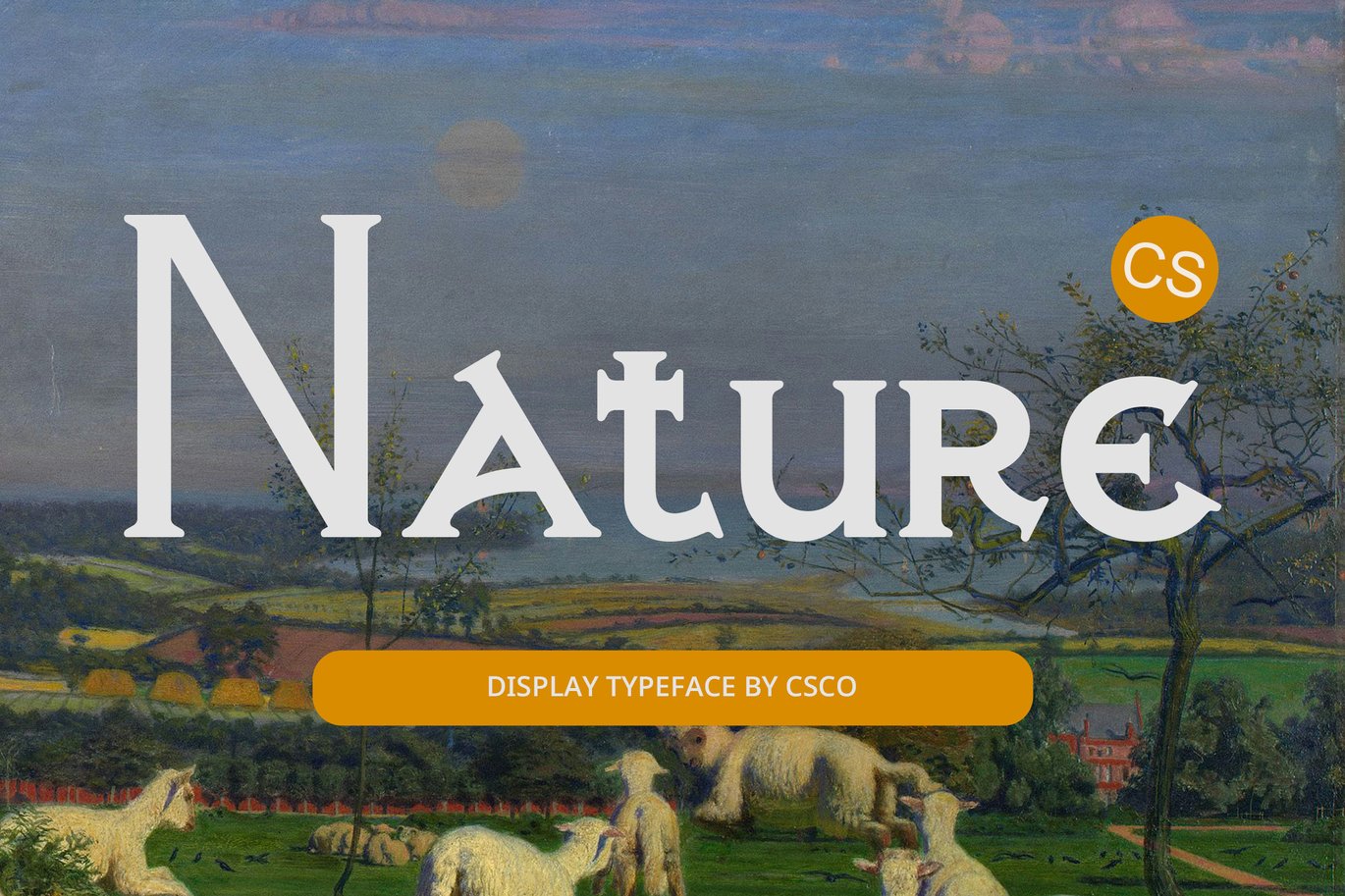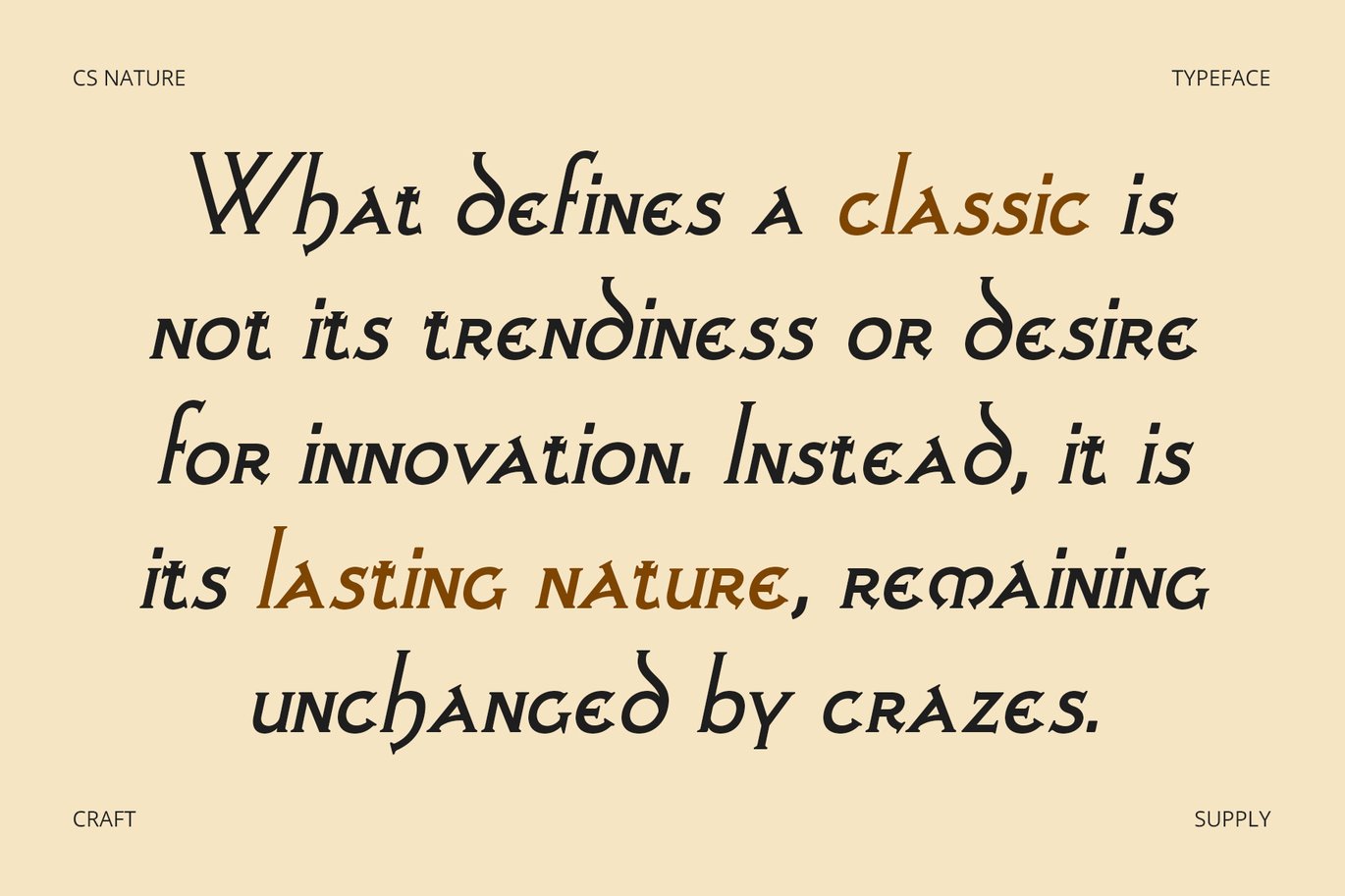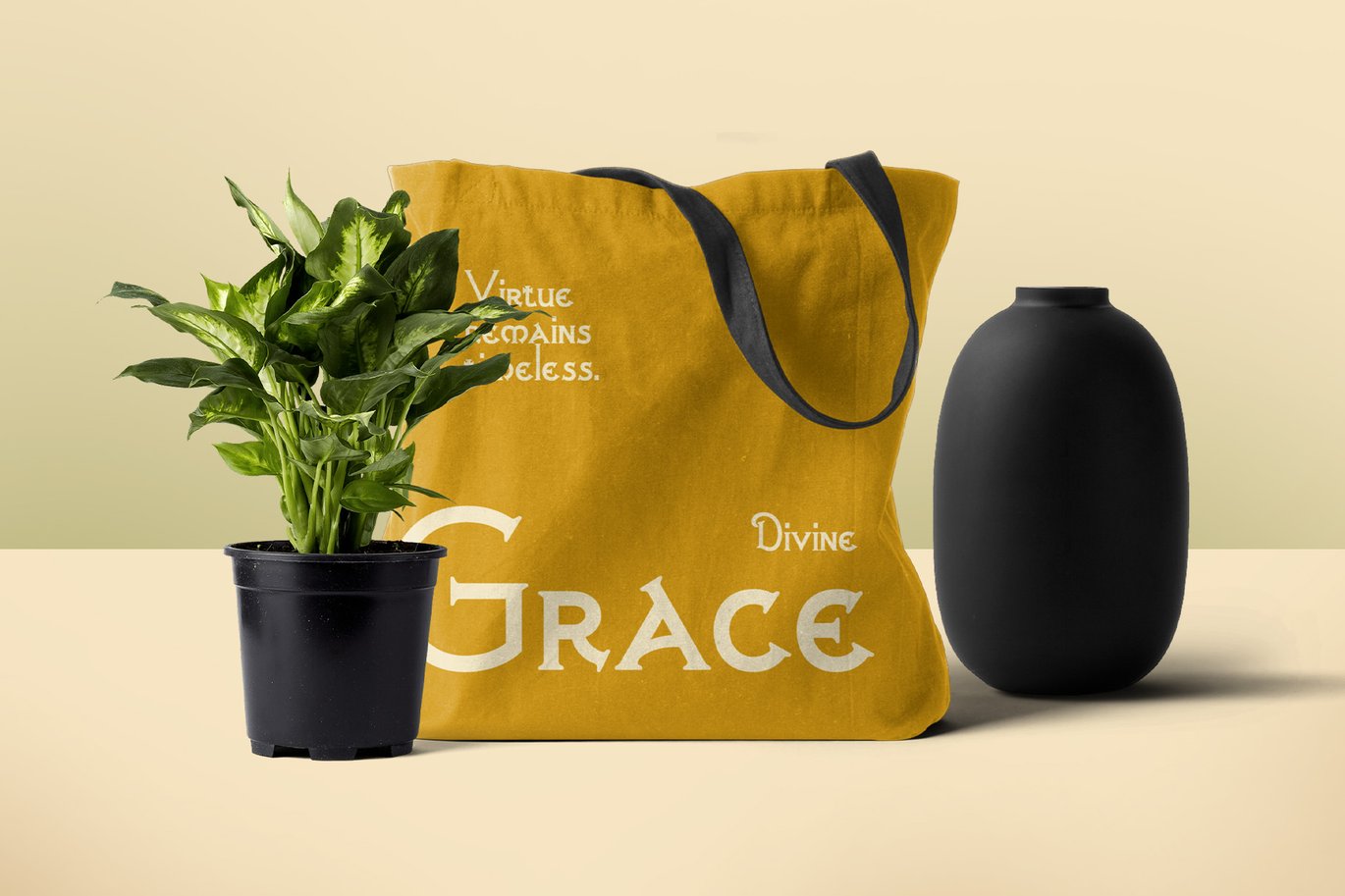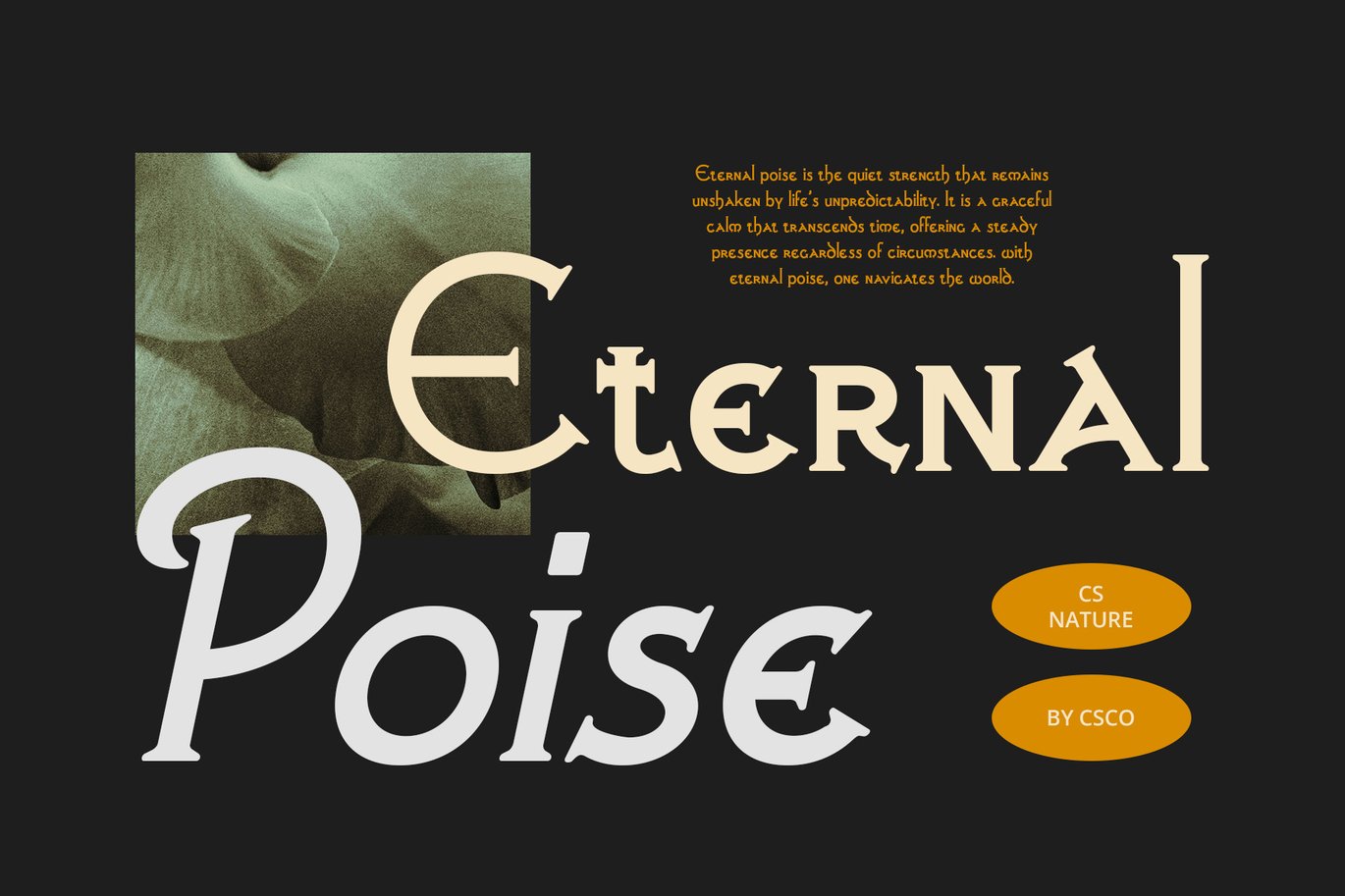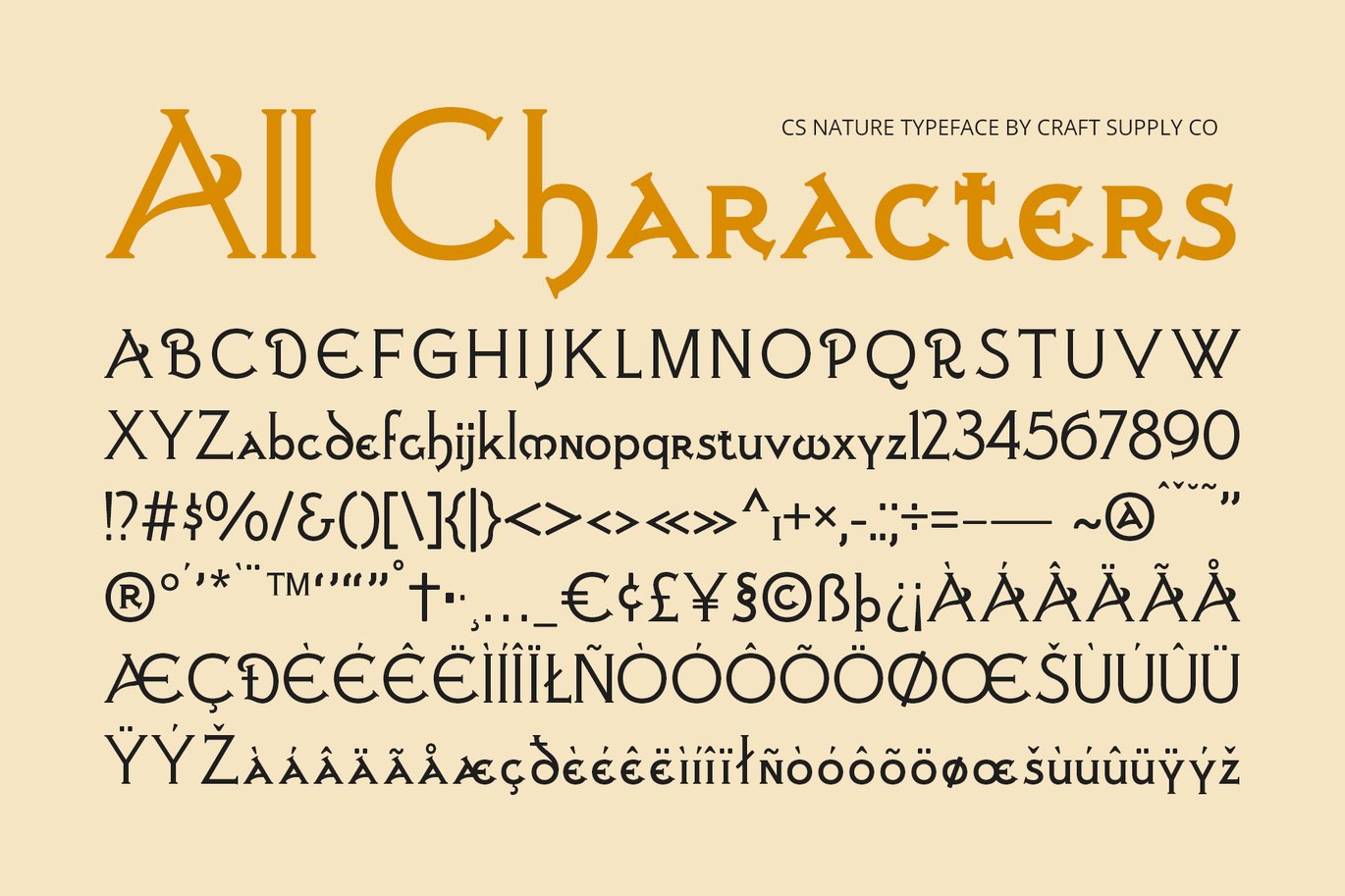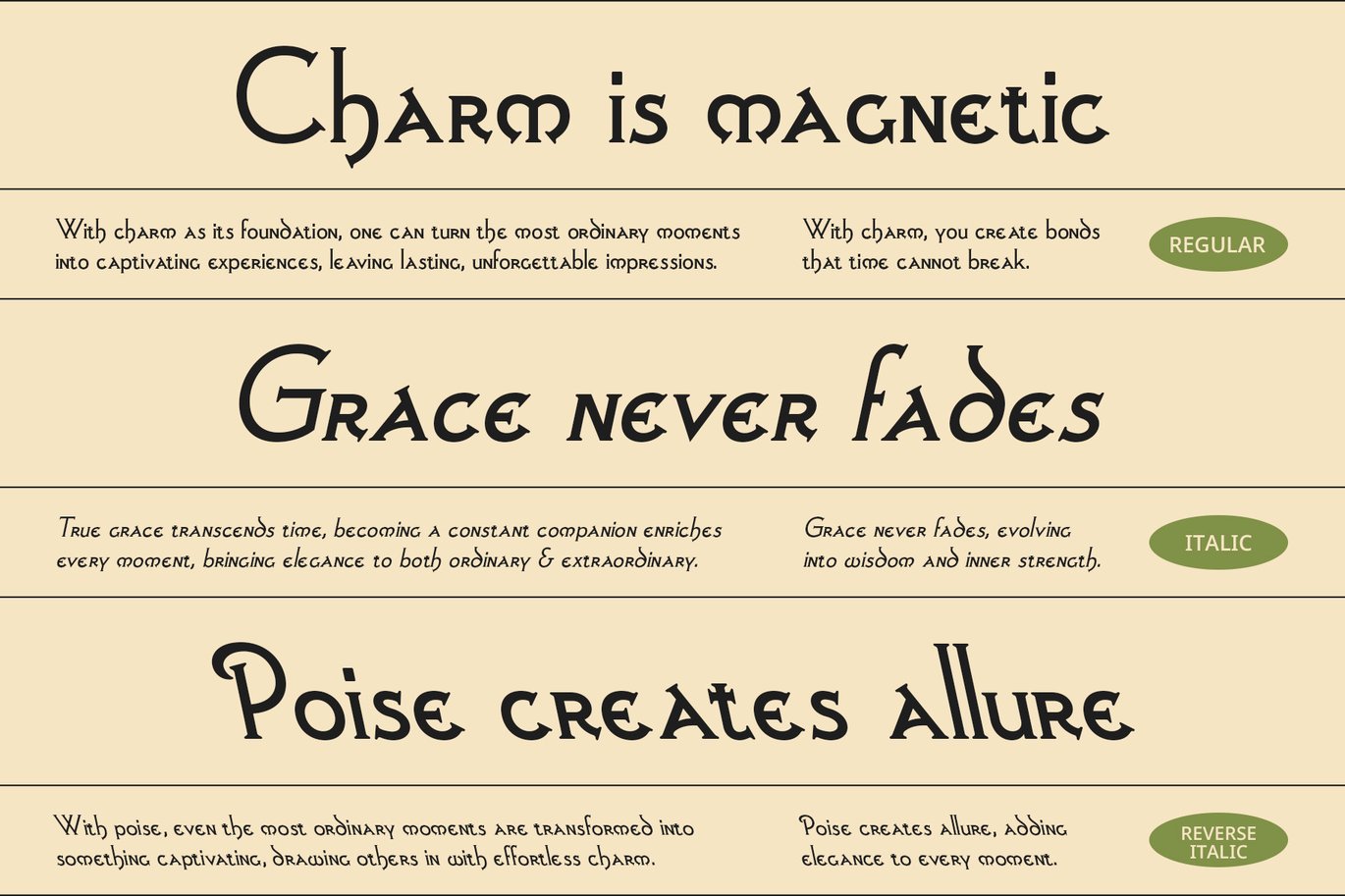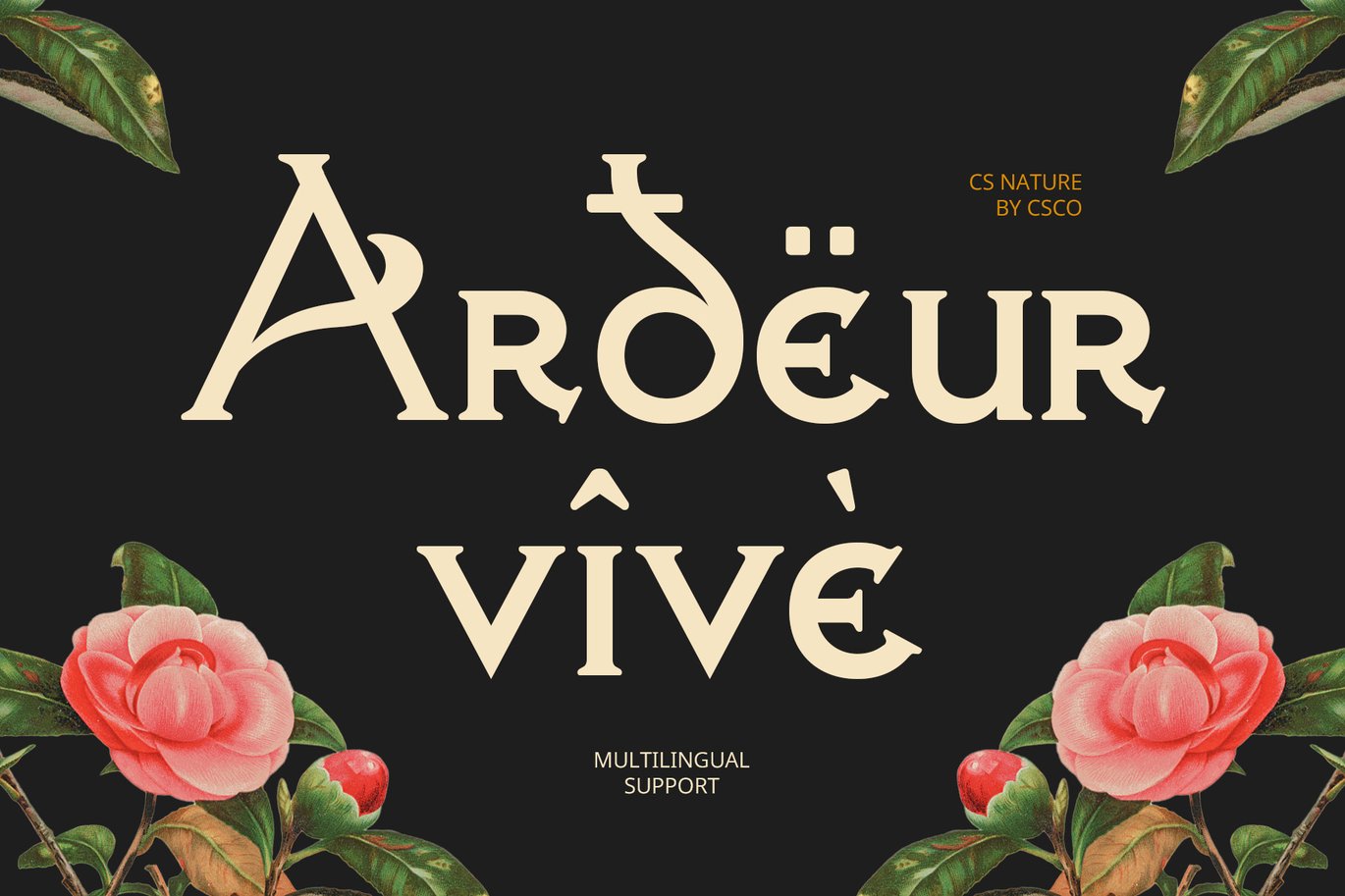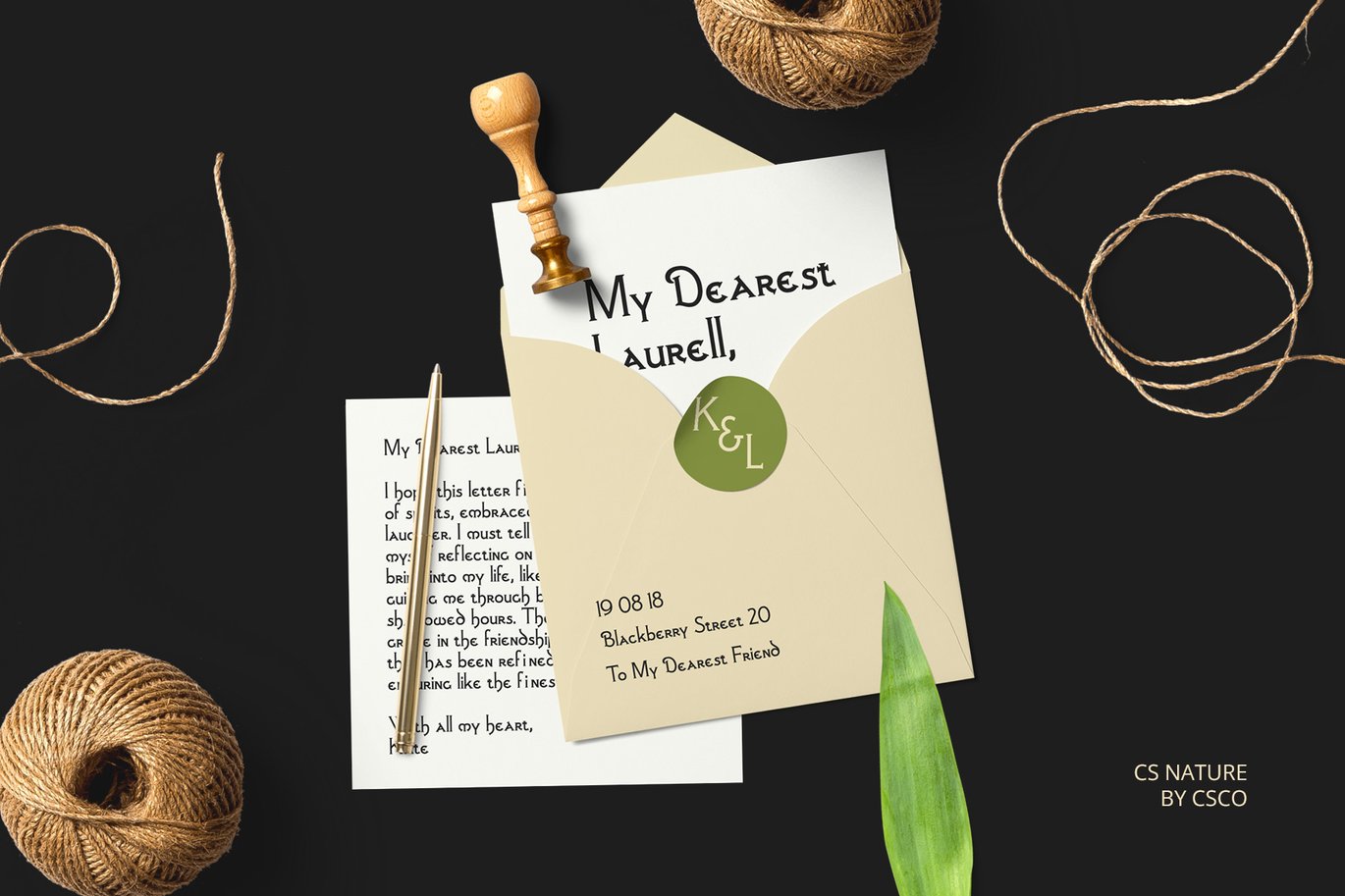
Nature – Uncial Font
CS Nature – Uncial Font: Classical Elegance Meets Timeless Charm
Serif Display Font with Uncial Letterforms
CS Nature is a serif display font that draws inspiration from the uncial script, featuring rounded, flowing letterforms that evoke a sense of classical elegance and historical charm. Its distinctive, soft curves and gentle strokes transport your designs to a bygone era, making it an ideal choice for projects that seek to capture a sense of heritage and refined beauty.
Historical Charm and Refined Aesthetic
Inspired by ancient calligraphy, CS Nature’s uncial shapes give it a unique, artistic quality that blends tradition with sophistication. The rounded edges and fluidity of the letters offer a visual balance of old-world charm and modern readability, perfect for designs that want to infuse an air of timeless grace and cultural depth.
Ideal for Heritage-Inspired and Formal Designs
Whether you’re working on branding that celebrates history, formal invitations, or artistic designs, CS Nature is an excellent choice. Its classic form makes it perfect for heritage-inspired projects, art exhibitions, or high-end product packaging that seeks to connect with the past while maintaining a contemporary appeal.